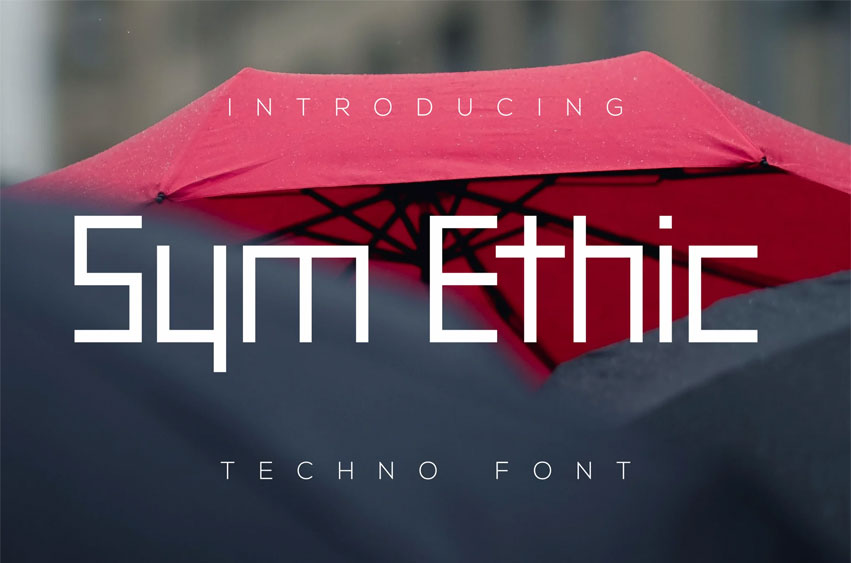
Sym Ethic Font
Sym Ethic Font is a modern and authentic font. Perfect for both professional and branding needs of a product. This font is suitable for any branding project like quotes, logo, blog header, poster, branding, letter, invitation, stationery, etc.
Designed as a versatile and flexible tool that can be used on a range of projects and media. outstanding in a wide range of contexts.